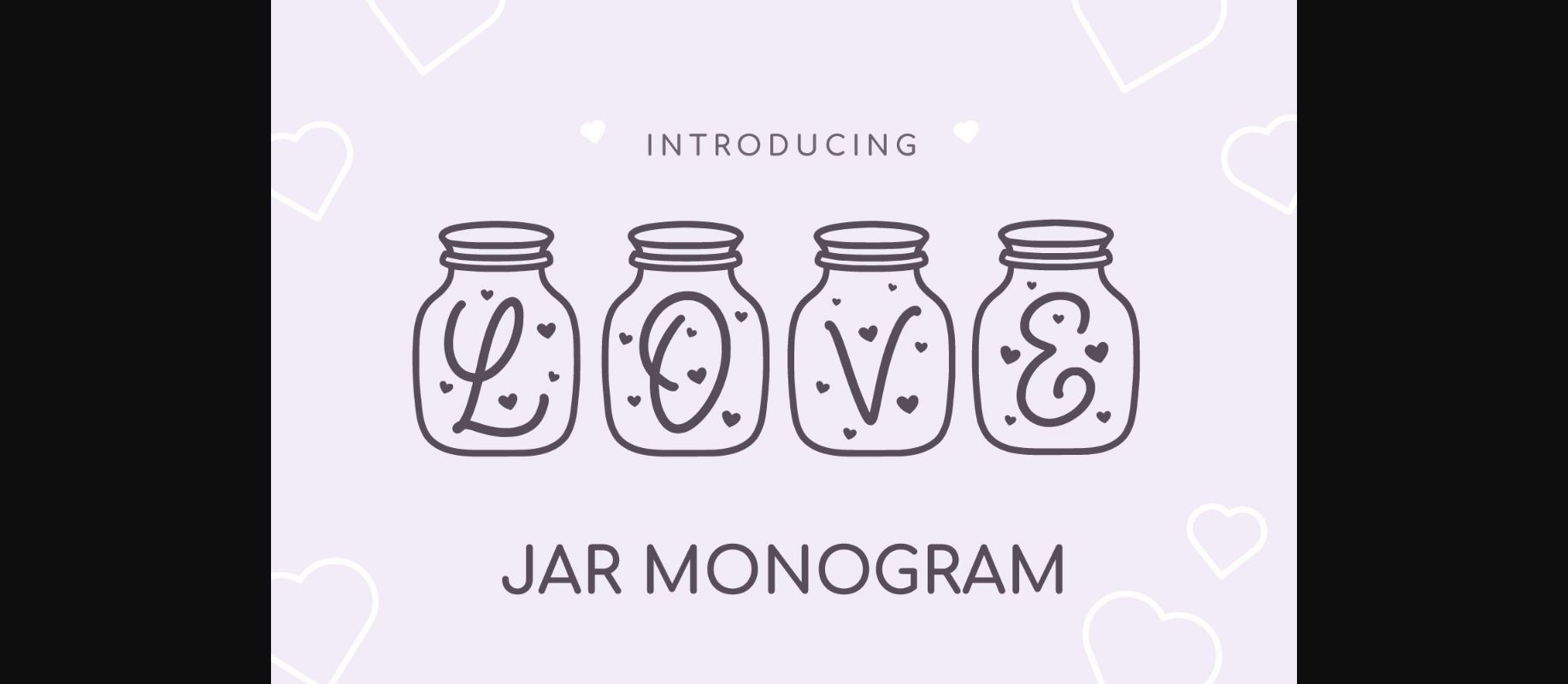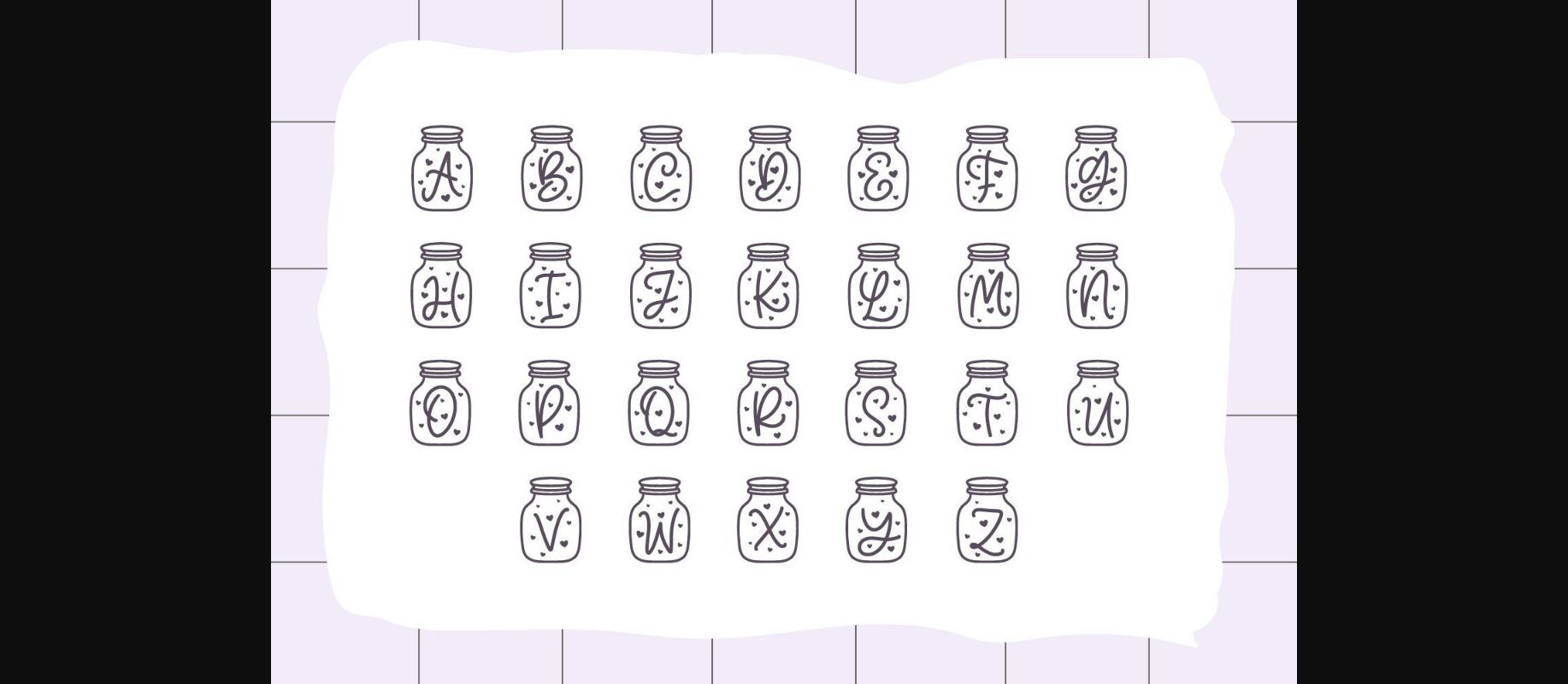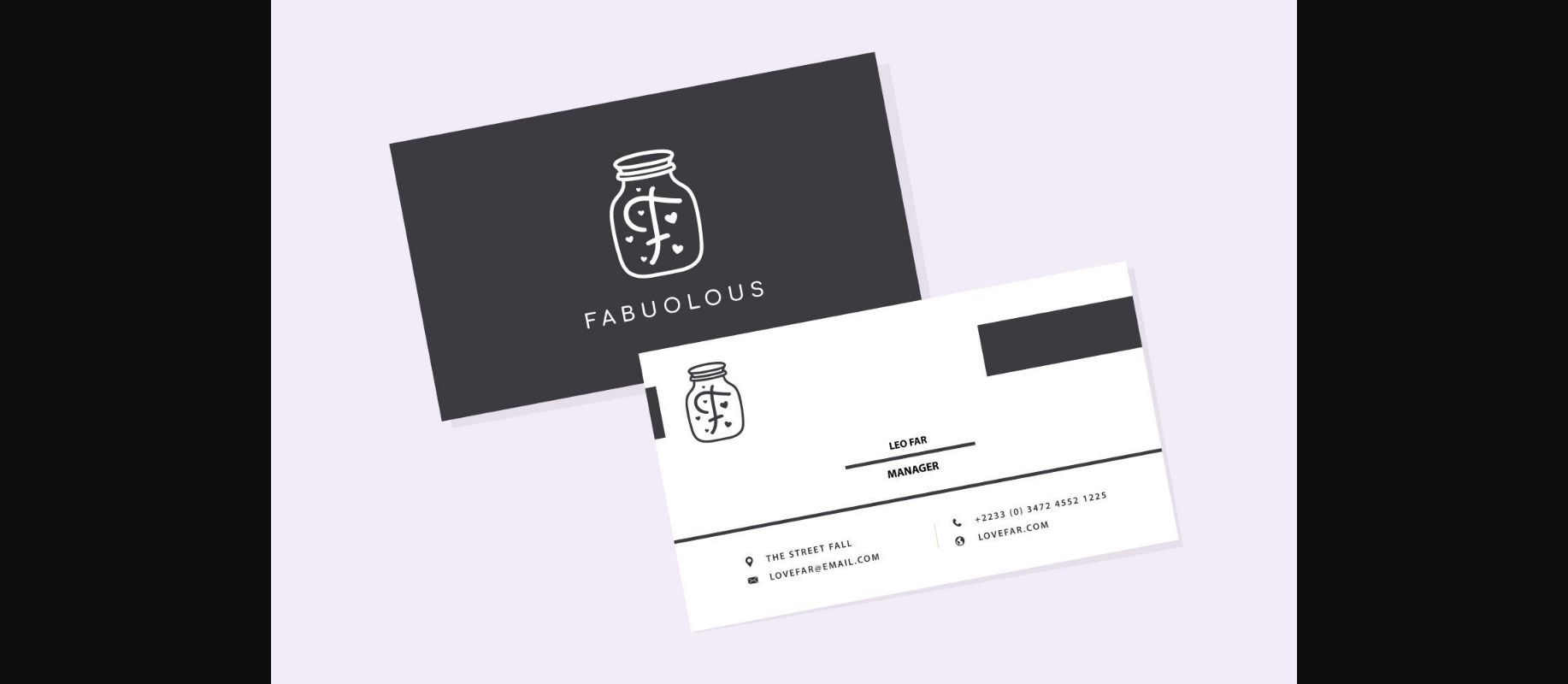
About Love Jar Monogram Font
Love Jar Monogram is a timeless and delicate decorative font. It features gorgeous capital letters that will take your crafting projects to the next level!